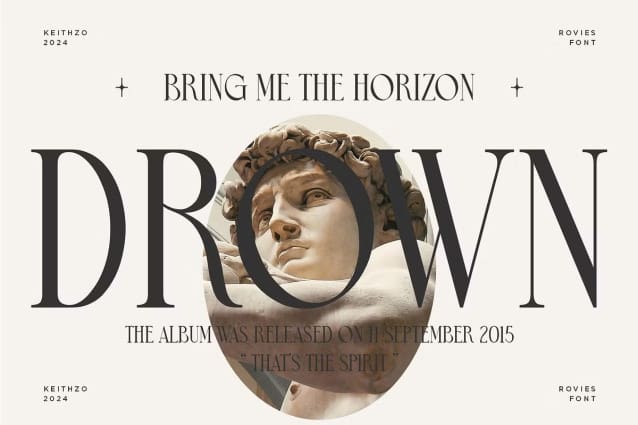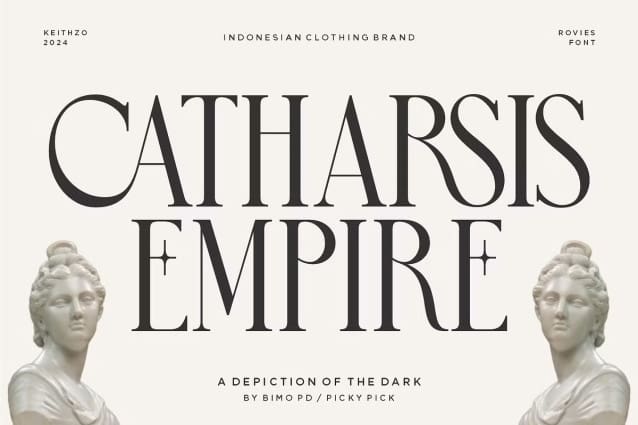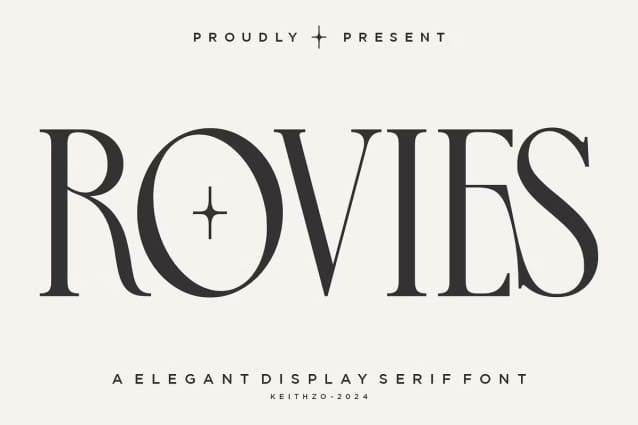
Rovies Font
Rovies Font a visually stunning typography with a touch of elegance. Rovies font impeccably breathes life into clothing logos, lending each design an irresistible aesthetic allure. Let it serenade the cover of your music albums with its elegance, or allow it to captivate your readers on posters and magazines. A star in the realm of digital space, this exquisite typeface makes your social media posts vibrant and alluring. The dynamic yet versatile character of Roviesfont ensures it is the typography of choice for creatives seeking to make a bold style statement. This font is PUA encoded which means you can access all of the amazing glyphs and ligatures with ease!